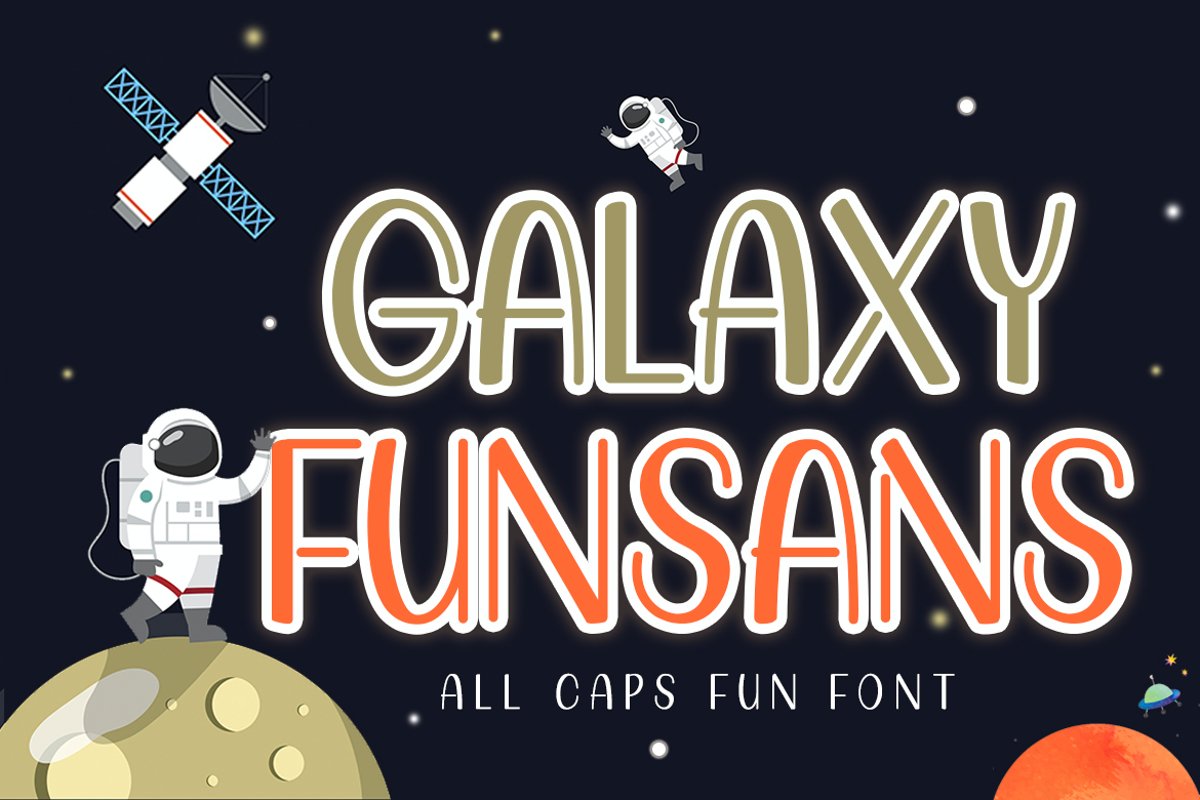
Galaxy Funsans | All Caps Fun Font
Galaxy Funsans
Galaxy Funsans is a simple all caps font with a naturan touch of a clean sans serif font. It has thin and bold shape in each characters. Combine lowercase and uppercase to get a good result.
Galaxy Funsans is perfect for any design which need a simple looking of clean and playful sans serif font such as wedding invitation, book cover, children book title, logotype, and more!